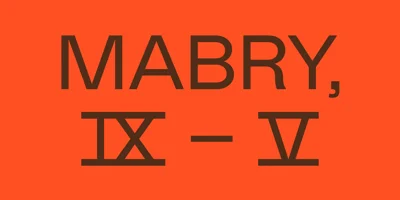
Mabry Font
Mabry Font is perfect for modern tech branding, startup logos, contemporary web design, digital product interfaces, sleek marketing materials, innovative app design, progressive corporate identity, cutting-edge advertising campaigns, futuristic packaging, and forward-thinking publications that require clean sophistication and technological precision.
What makes Mabry Font truly exciting is its perfect fusion of geometric precision and subtle warmth that creates an ideal balance between technical excellence and human approachability. This exceptional typeface embodies the spirit of modern innovation with its carefully crafted letterforms and optimized proportions that communicate reliability, intelligence, and forward-thinking vision. The font's versatile nature and contemporary appeal make it perfect for brands seeking to establish credibility in the digital age while maintaining authentic human connection.
The Mabry Font family includes comprehensive weights and styles: Thin, Light, Regular, Medium, Bold, and Black variations, each available in Roman and Italic versions. Each family member maintains the distinctive modern character while offering complete flexibility for sophisticated typographic systems. The extensive character set supports multiple languages and advanced OpenType features, making it suitable for global technology applications.
When you choose Mabry Font, you're selecting a typography solution that represents the future of digital communication. This versatile typeface performs exceptionally well across all platforms and devices, maintaining crystal-clear legibility while delivering contemporary visual impact. Whether you're creating brand identities, user interfaces, marketing campaigns, or digital publications, this font provides the modern character and technical precision that resonates with today's digitally-savvy audiences who expect both innovation and reliability.